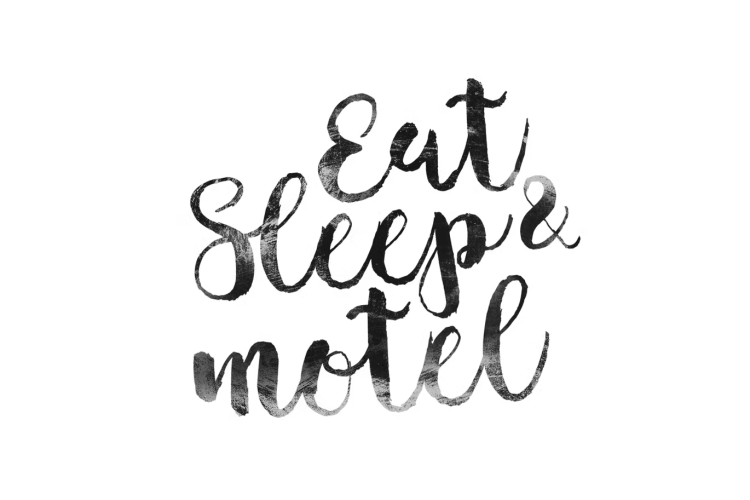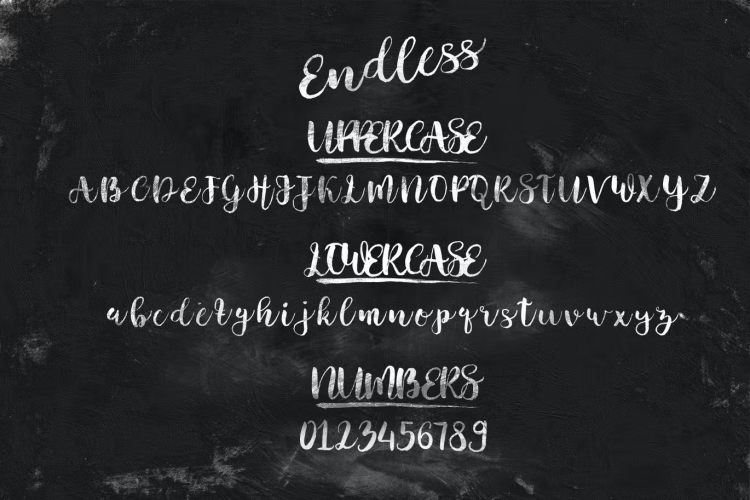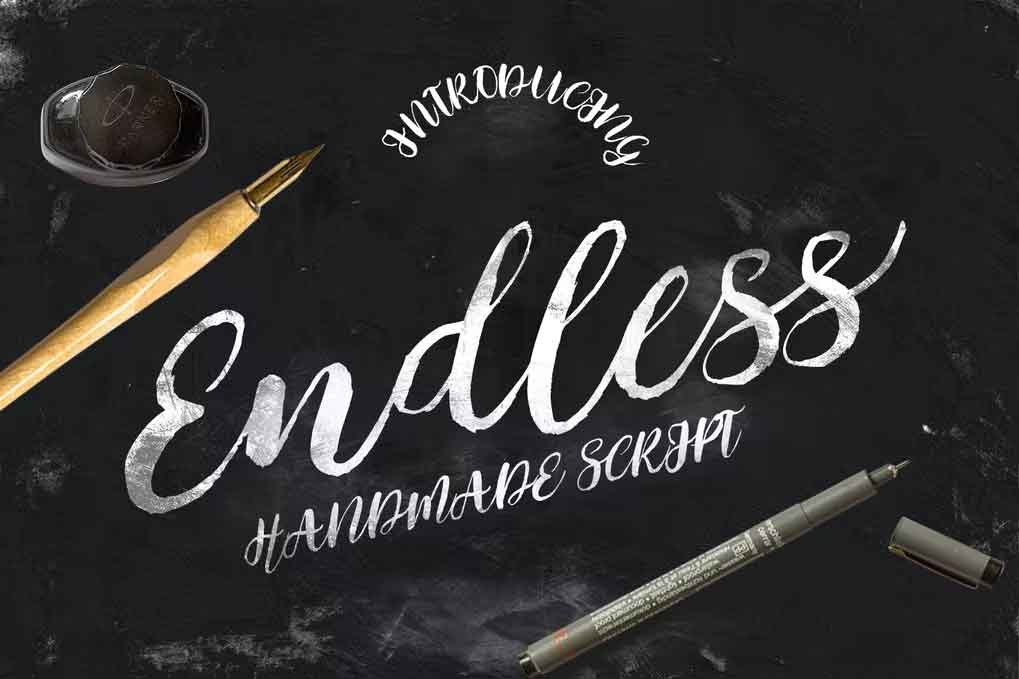
Endless Script Font
Endless Script is beautiful handwritten font. It looks like it has been created with a tiny brush or pencil and is great for adding elegant decorations to your designs.
Looks great on wedding invites, birthday cards, nursery decorations and more.
A short phrase in Endless Script Font carries warmth that a typeset sans cannot fake; keep the rest of the card plain.
Chalkboard-style headings in Endless Script Font make a menu feel hand-made. Keep the dish descriptions in a simple face so prices stay readable.
One line of Endless Script Font over a photo is enough; the script carries the tone and the caption does the work.
It sits in the Script And Handwritten group and reads as elegant, handwritten, kids, script. That makes it a candidate wherever those qualities help: headings, packaging, social graphics and brand work. Set it at the size you plan to use before deciding.